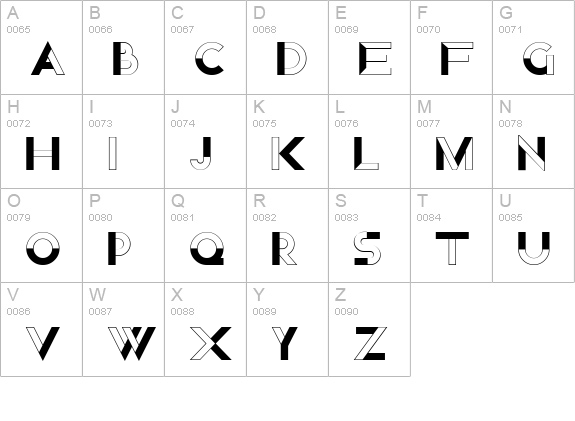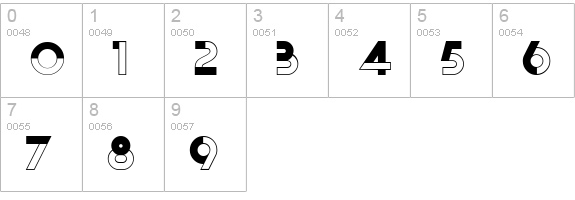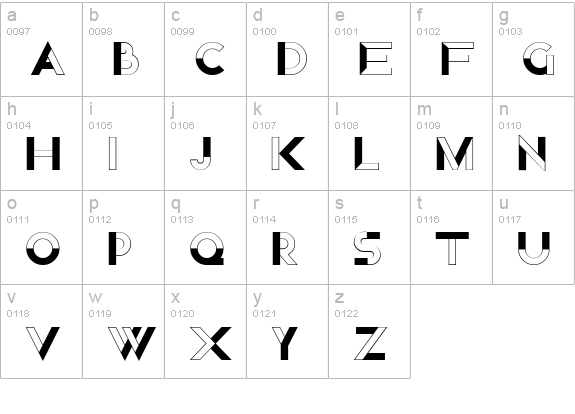
Nord Express NF font is a sleek and modern typeface that exudes sophistication and elegance. With its clean lines and sharp angles, this font is perfect for adding a touch of class to any design project. Whether you're creating a logo, poster, or website, Nord Express NF font will make your text stand out and grab attention. What's even better is that Nord Express NF font is completely free to use! You can download this stunning font for no charge at FontsMarket.com. So why wait? Elevate your design game today with Nord Express NF font and make a lasting impression with your work.